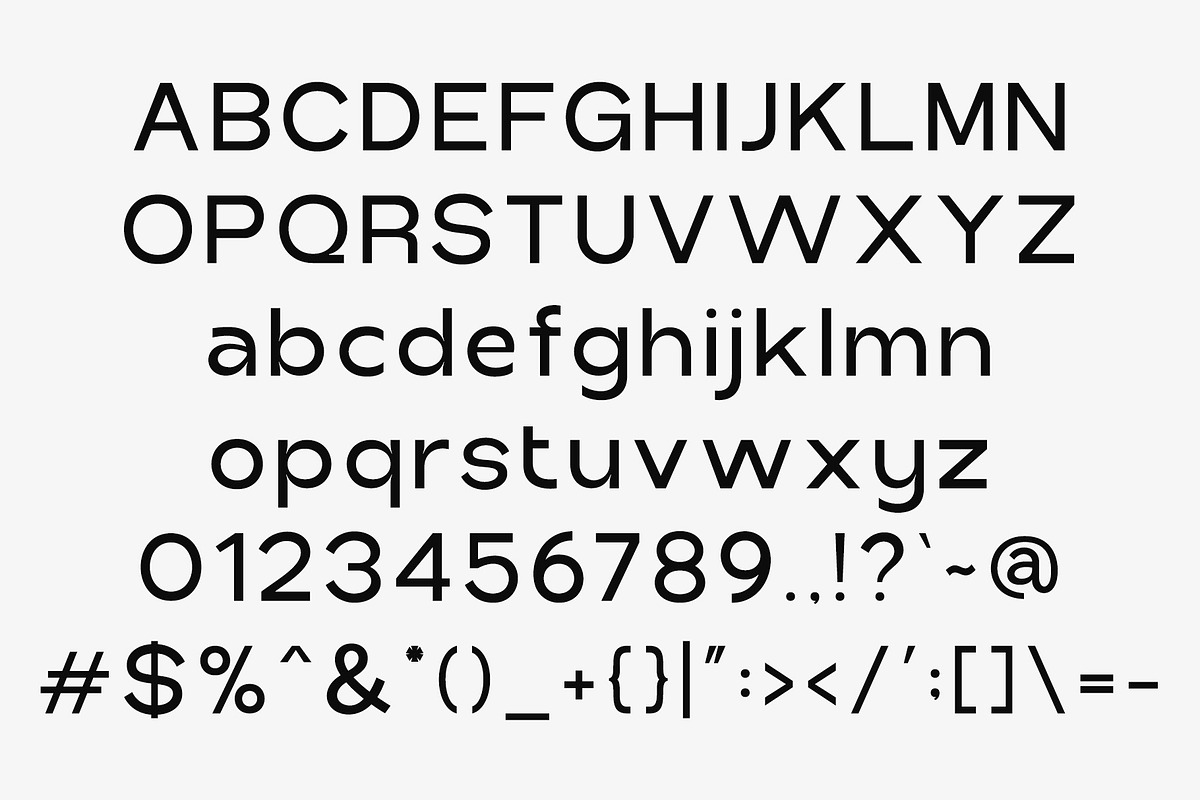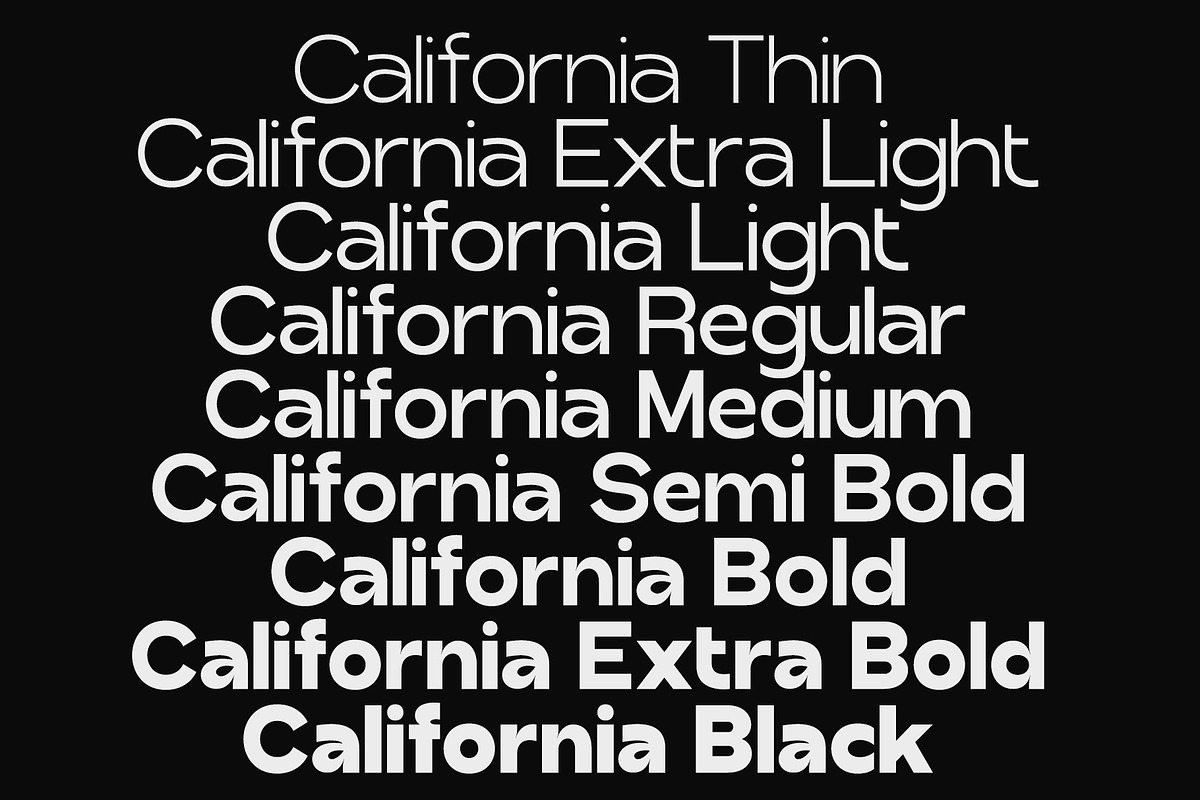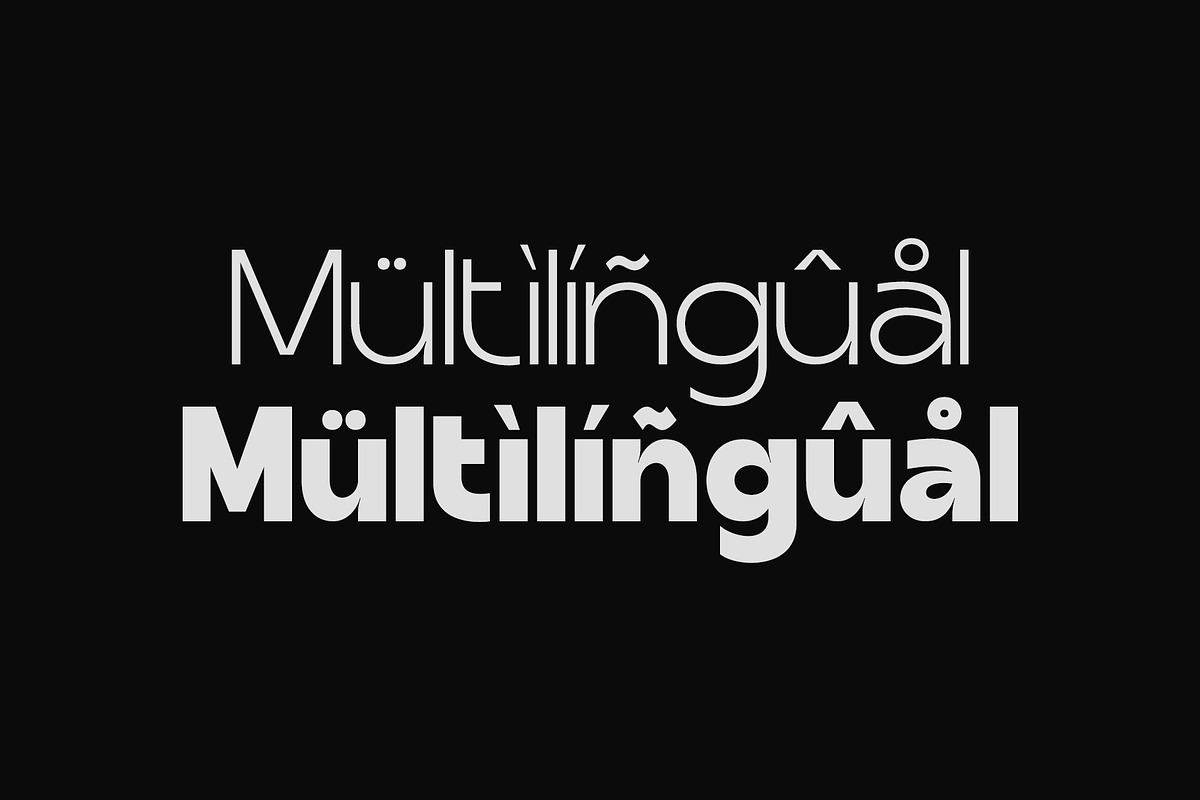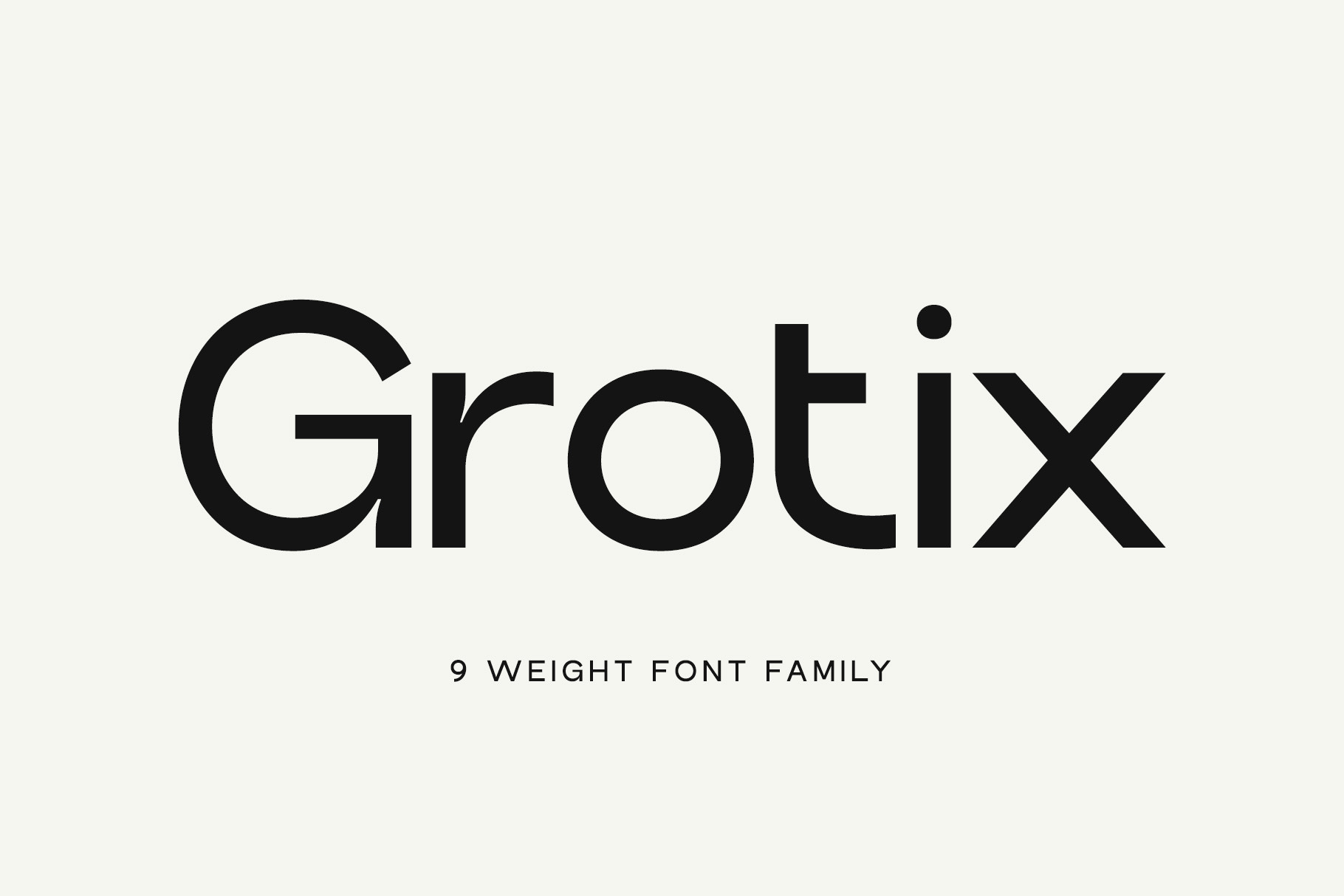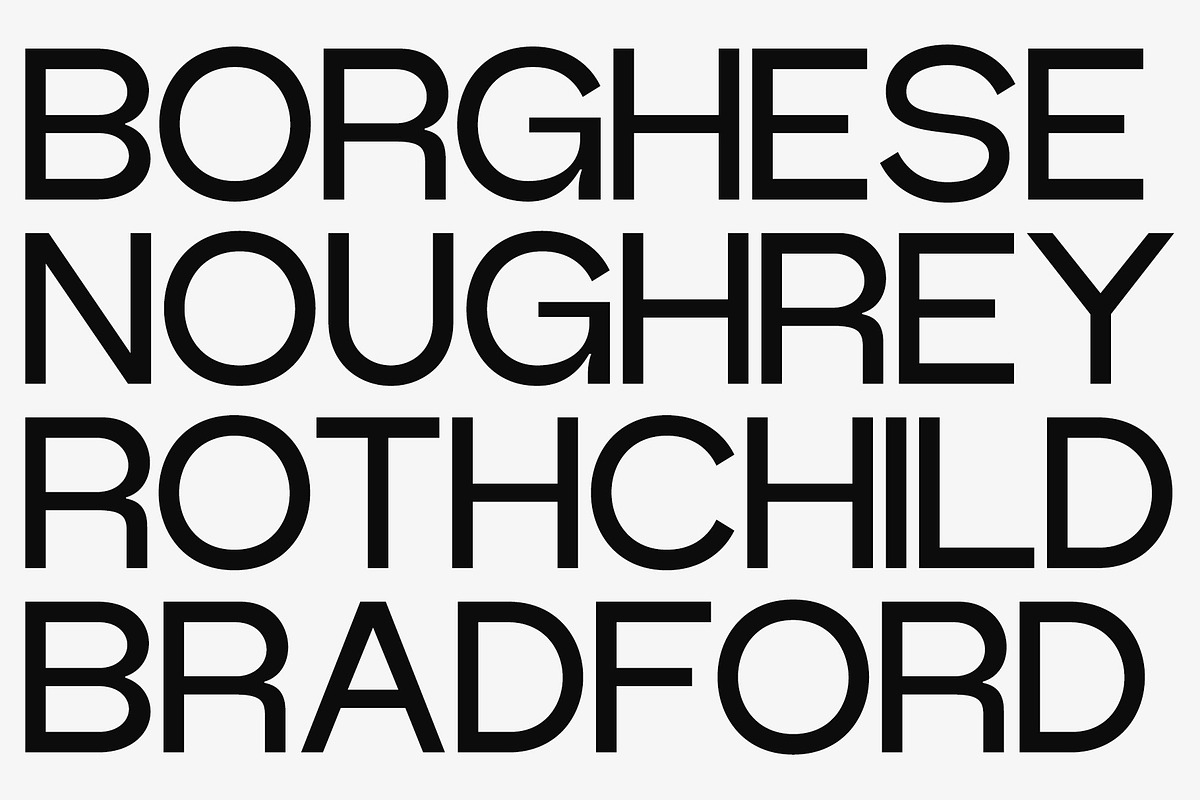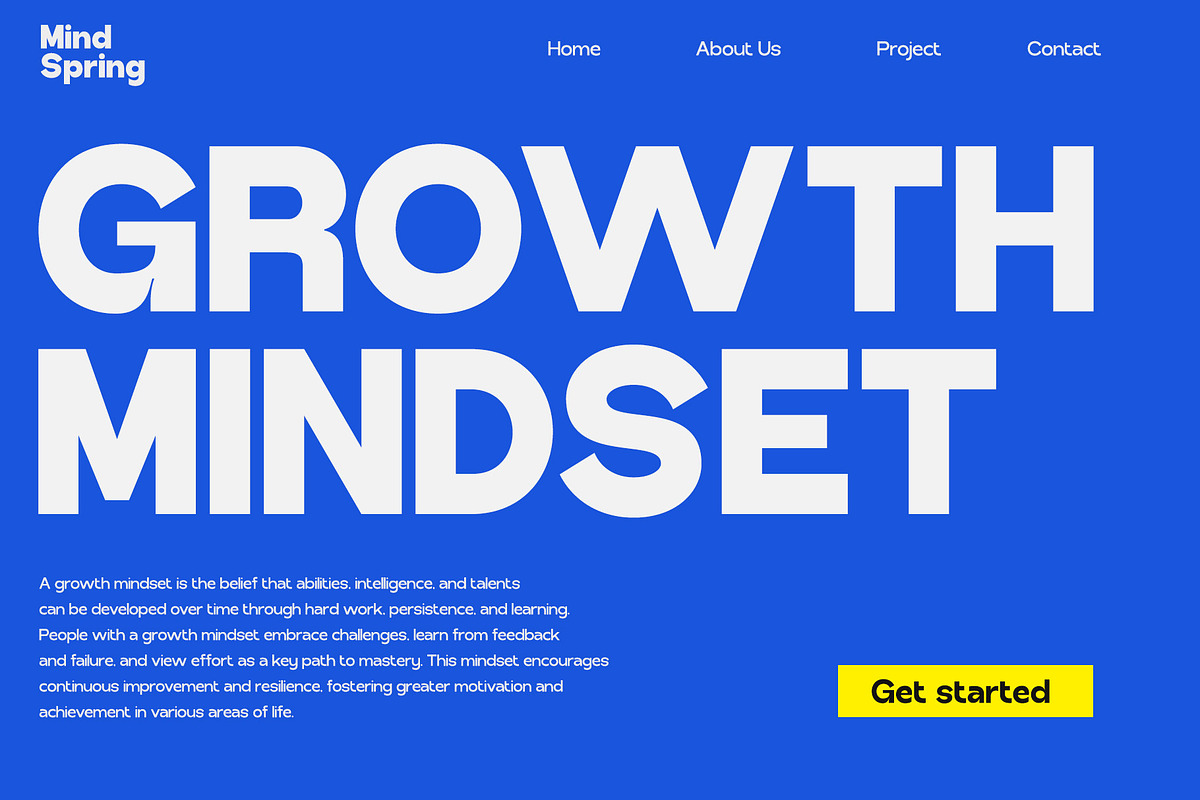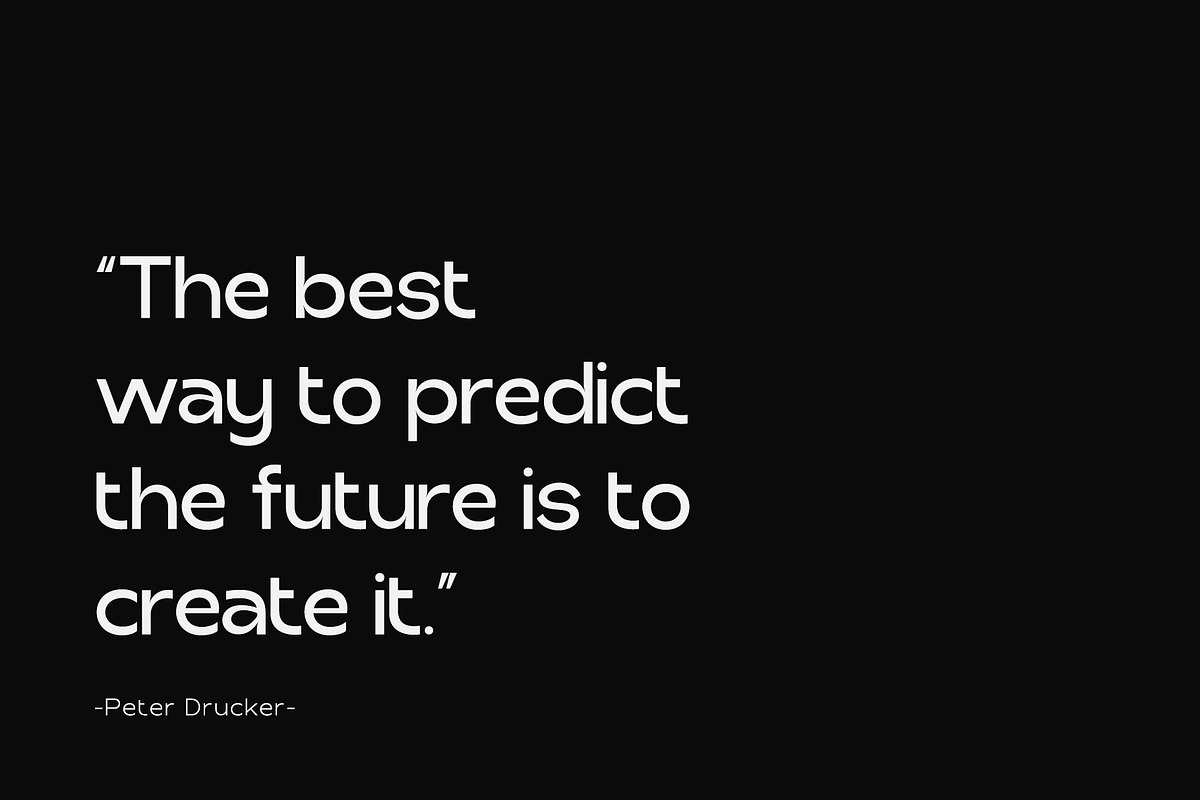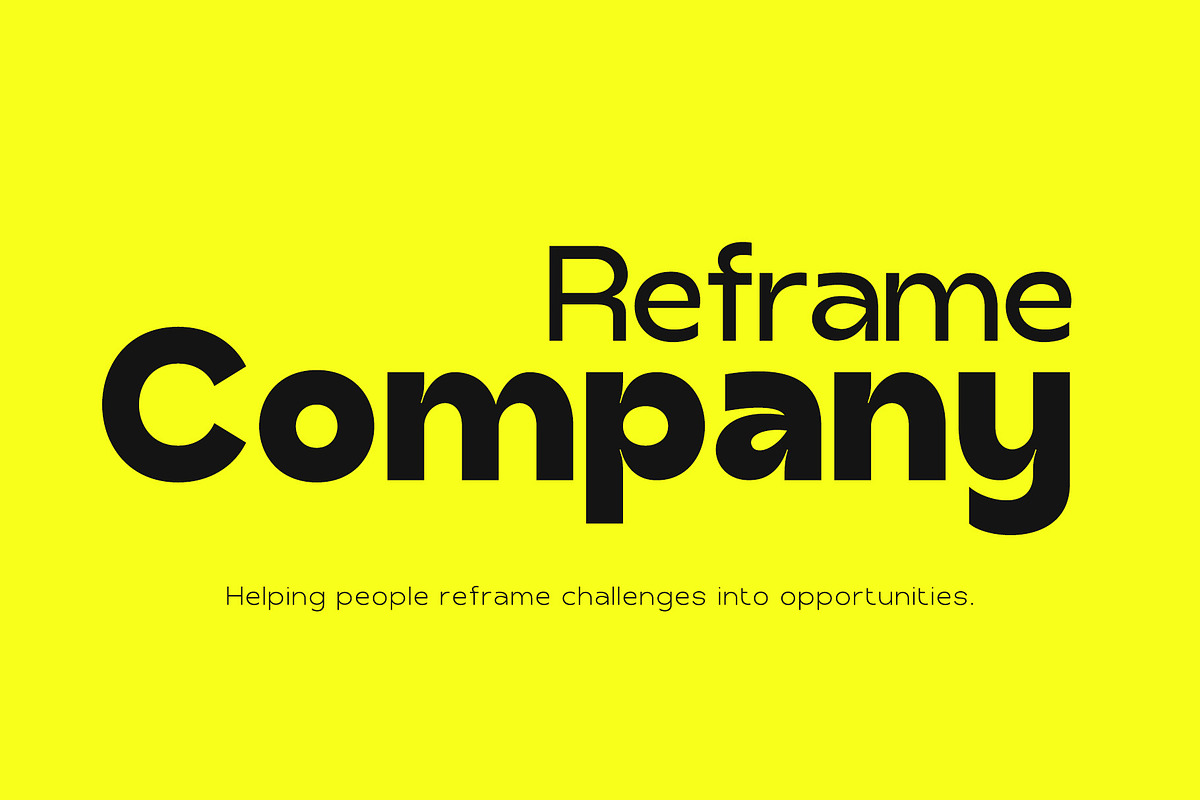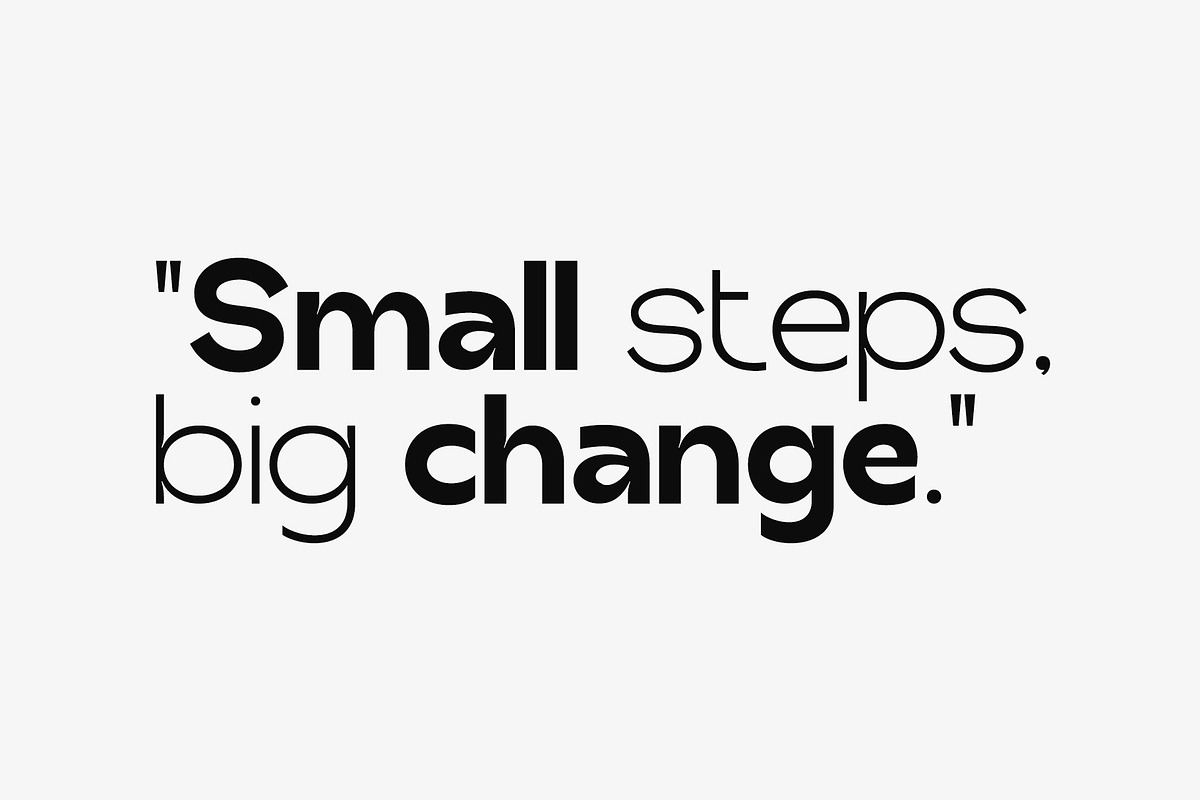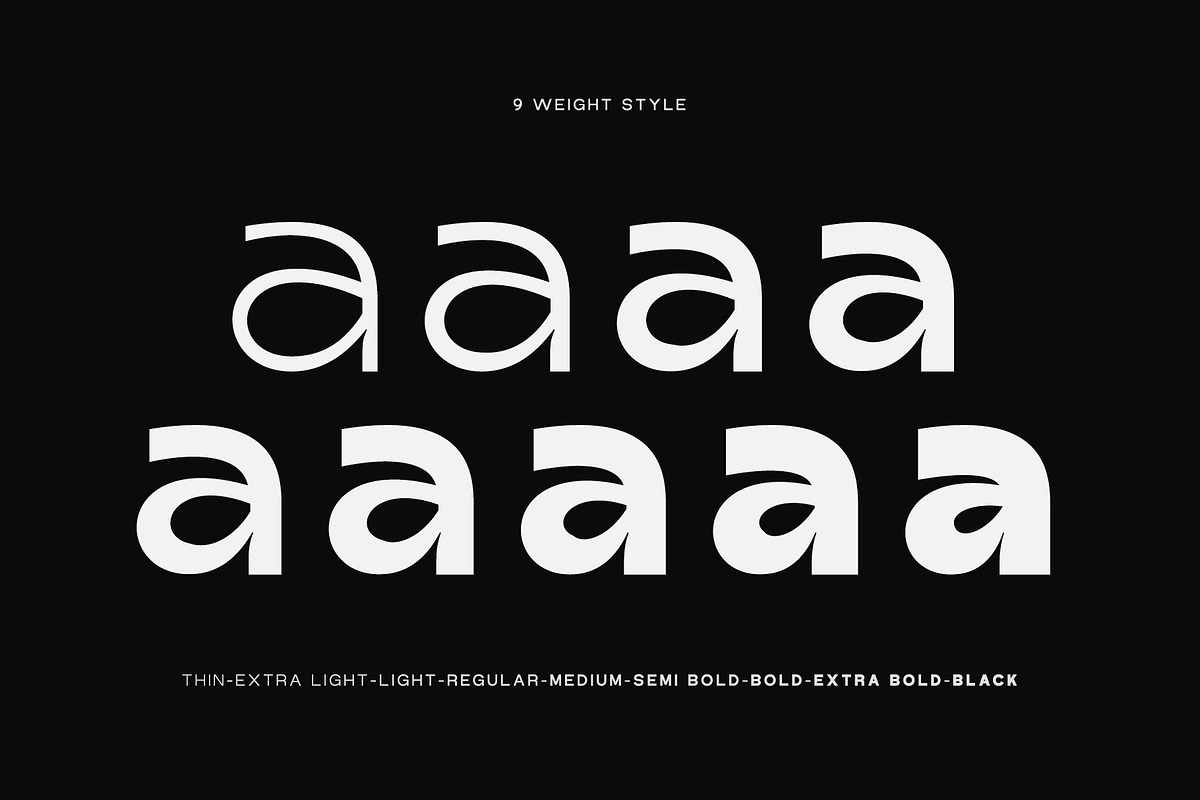
Grotix | A Modern Font Family
Grotix is a sleek, contemporary sans-serif typeface designed for versatility and elegance. Inspired by classic grotesque typefaces but reimagined with a modern twist, Grotix brings clean lines, geometric balance, and a professional feel to every letterform.
Perfect for branding, editorial design, websites, packaging, and user interfaces, Grotix comes in a full range of weights from Thin to Extra Bold with matching italics to give you total creative control.
9 weights
Clean & minimal sans serif design
Extended Latin character set
Ideal for headlines, logos, web, and print
Whether you're designing a modern app interface or crafting a timeless brand identity, Grotix offers clarity, functionality, and style all in one cohesive font family.